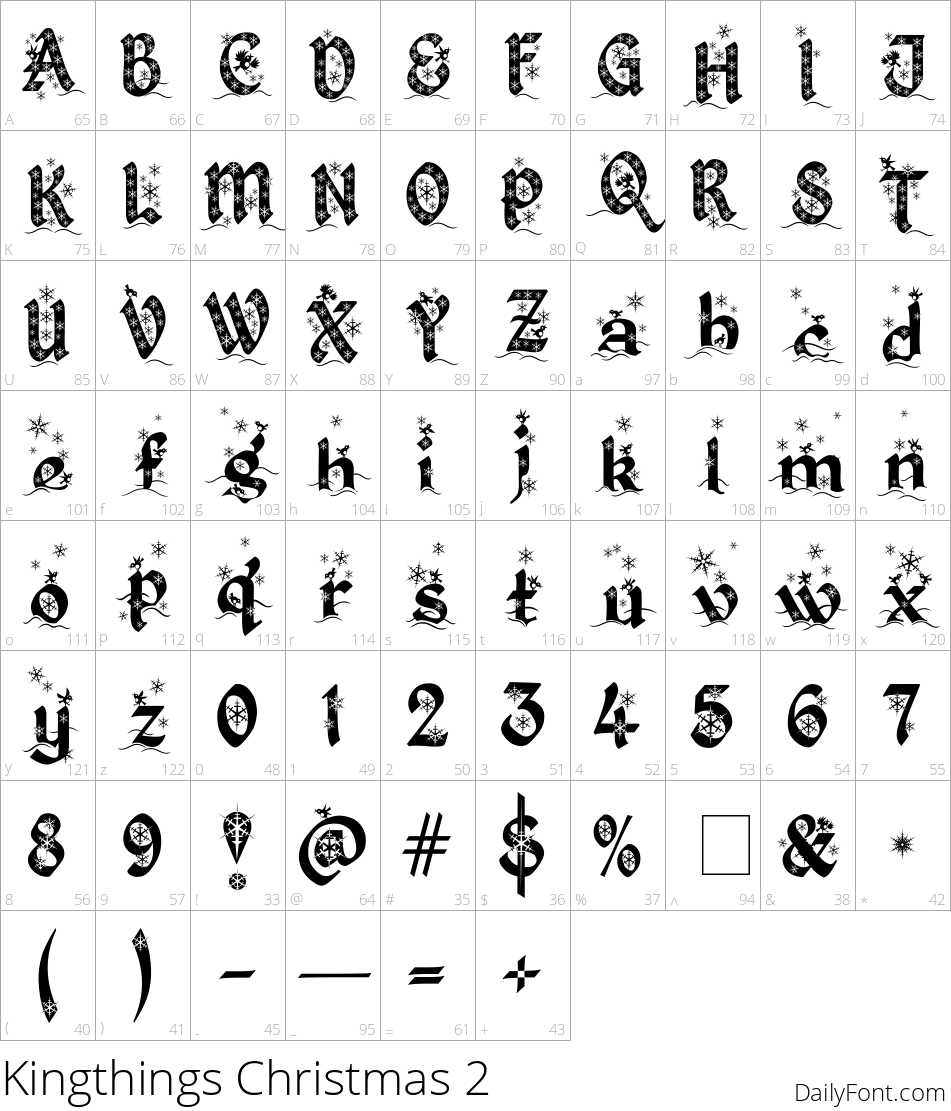
Kingthings Christmas 2
Ornate blackletter caps patterned with snowflakes and tiny reindeer
Kingthings Christmas 2 dresses up gothic, blackletter-inspired capitals with a scattering of tiny snowflakes, holly sprigs, and reindeer silhouettes worked directly into the letterforms, sitting on a gently wavy baseline like drifted snow. It is far more detailed than a typical holiday script, closer to an illuminated Christmas card.
It suits vintage-style Christmas cards and invitations, Christmas market signage, mulled-wine and old-world holiday branding, and any design that wants an elegant, richly decorated seasonal look. Free to download for personal use.